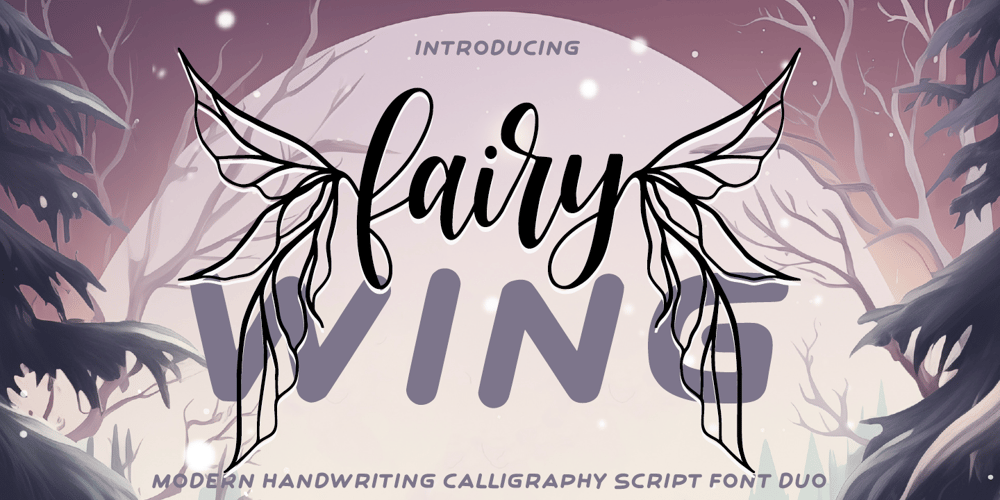
Fairy wing Font Family was designed by Muhammad Zaini and published by Cocodesign. Fairy wing contains 2 styles and family package options. fairy wing Script is a modern calligraphy design font duo, including Regular. This font is casual and beautiful with swash. Can be used for various purposes. such as logos, product packaging, wedding invitations, branding, headlines, signage, labels, signatures, book covers, posters, quotes, and more.